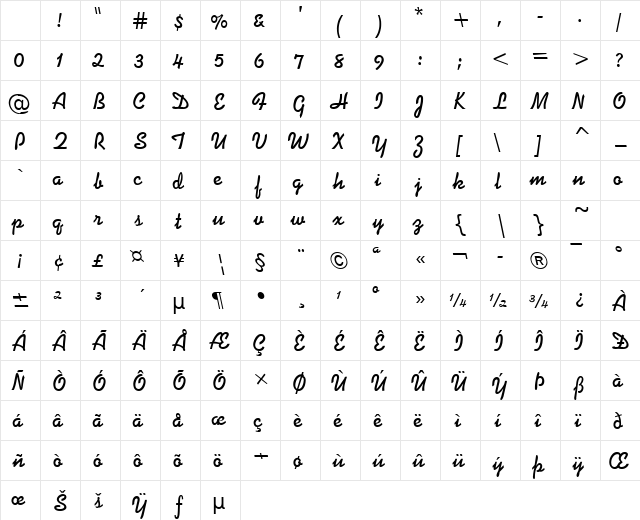
Complete Di Normal glyph index. Displaying only characters natively supported by Di Normal font.
Di is a composed and adaptable typeface that performs quietly and consistently across a wide range of design contexts.